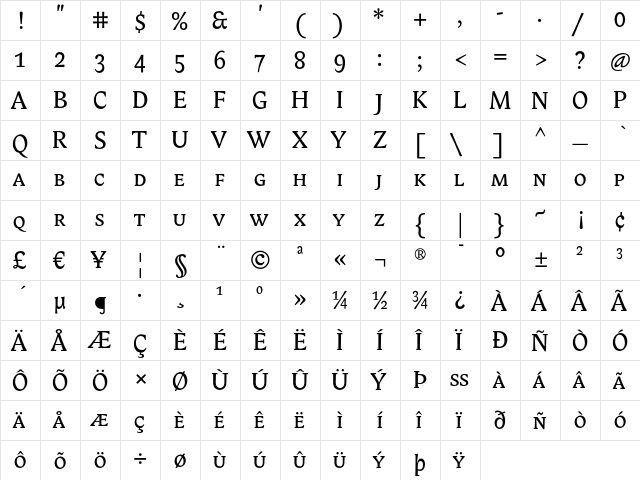
BiblonCaps Regular Font Preview
BiblonCaps Regular
BiblonCaps Regular Font Details
Design Context for BiblonCaps Typeface
BiblonCaps is a composed and adaptable typeface that performs quietly and consistently across a wide range of design contexts.